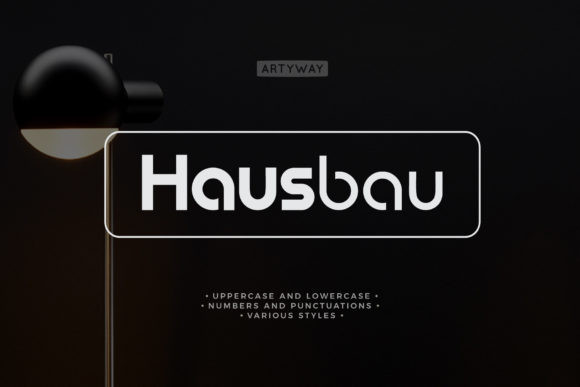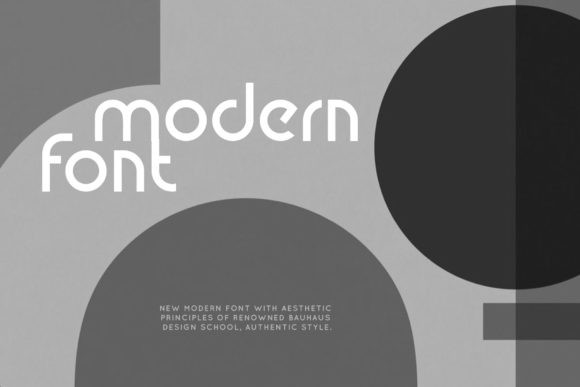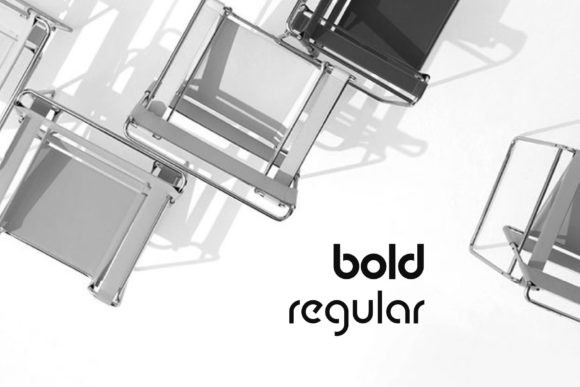
Hausbau Font
Hausbau is a simple and minimalist display font. This font is ideal for writing web designs, business cards, or pretty much anything else that requires a unique touch.